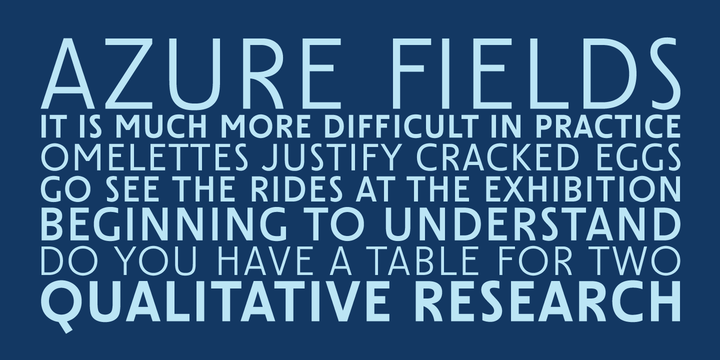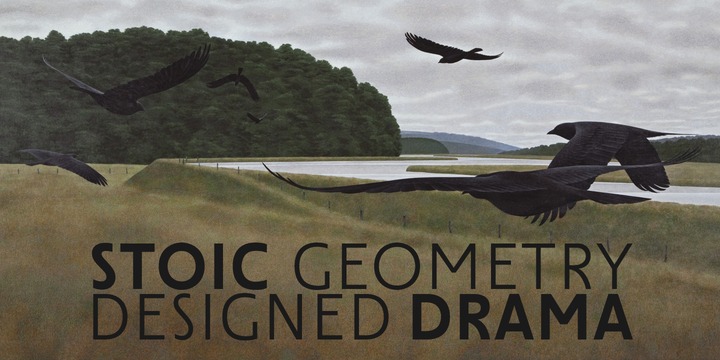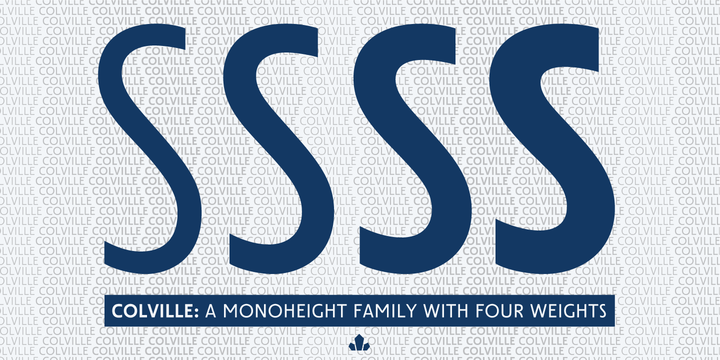
Colville Font Family
About this font family
The Colville fonts began their existence in 2015 as a project-specific typeface, made to be used on a custom-made headstone commemorating Canadian artist Alex Colville (1920-2013) and his wife Rhoda Wright. For that purpose, some initial shapes were modelled after letters Colville himself had used on a Governor General gold medal he designed in the mid-1970s.
From there started a year-long project that culminated in a set of four comprehensive fonts ranging in weight from Light to Bold, each containing over 750 glyphs to cover Pan European language support, stylistic alternates, five sets of figures, automatic fractions, and some ornaments rooted in Alex Colville’s art